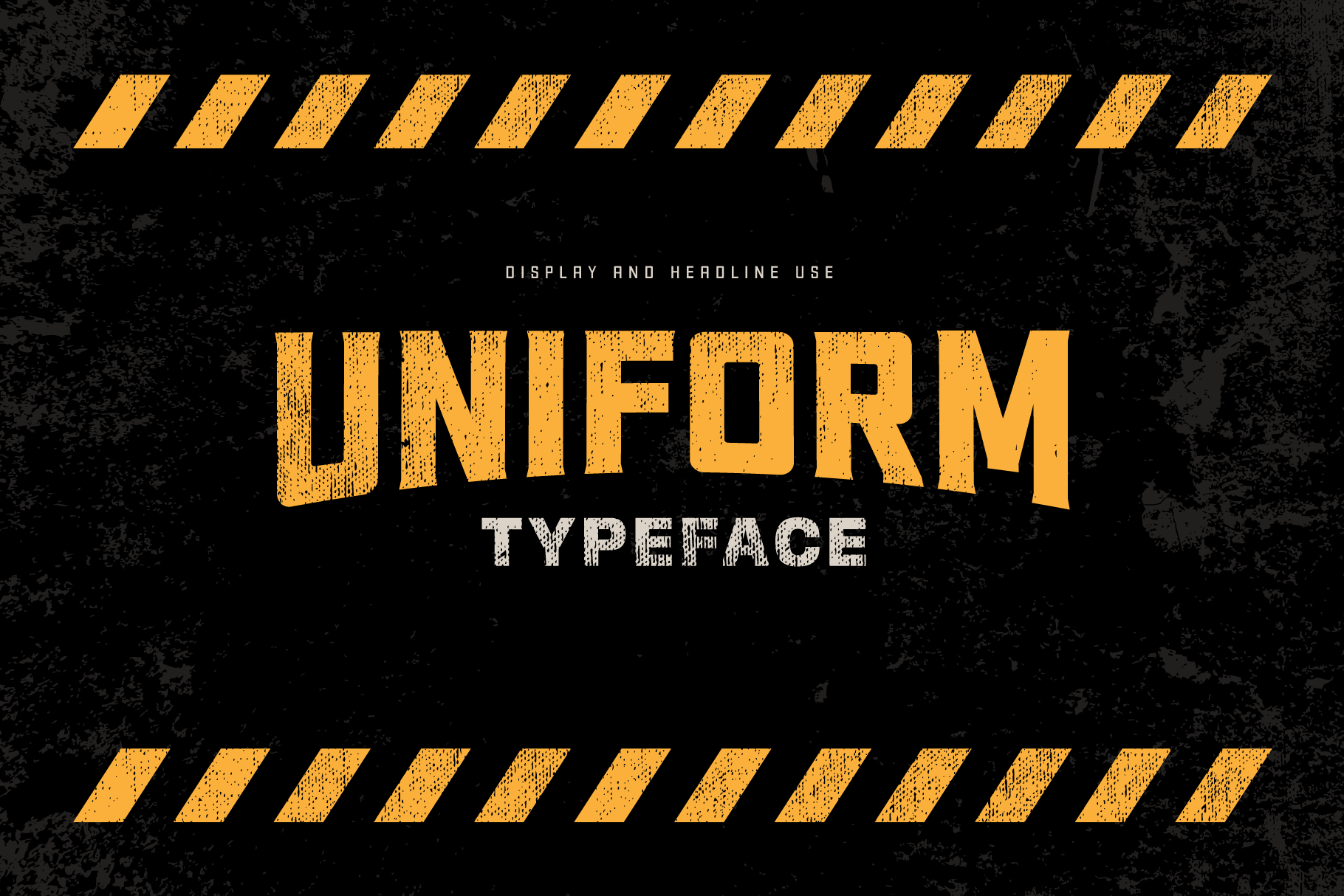
Uniform Display Typeface
This font is created in three styles (bold, regular, and light), which allows for a lot of versatility in your work. It was built using clean lines, allowing you the opportunity to have fun with the letterforms and tailor them to your designs. Use the below specimens for inspiration and have fun using Uniform!